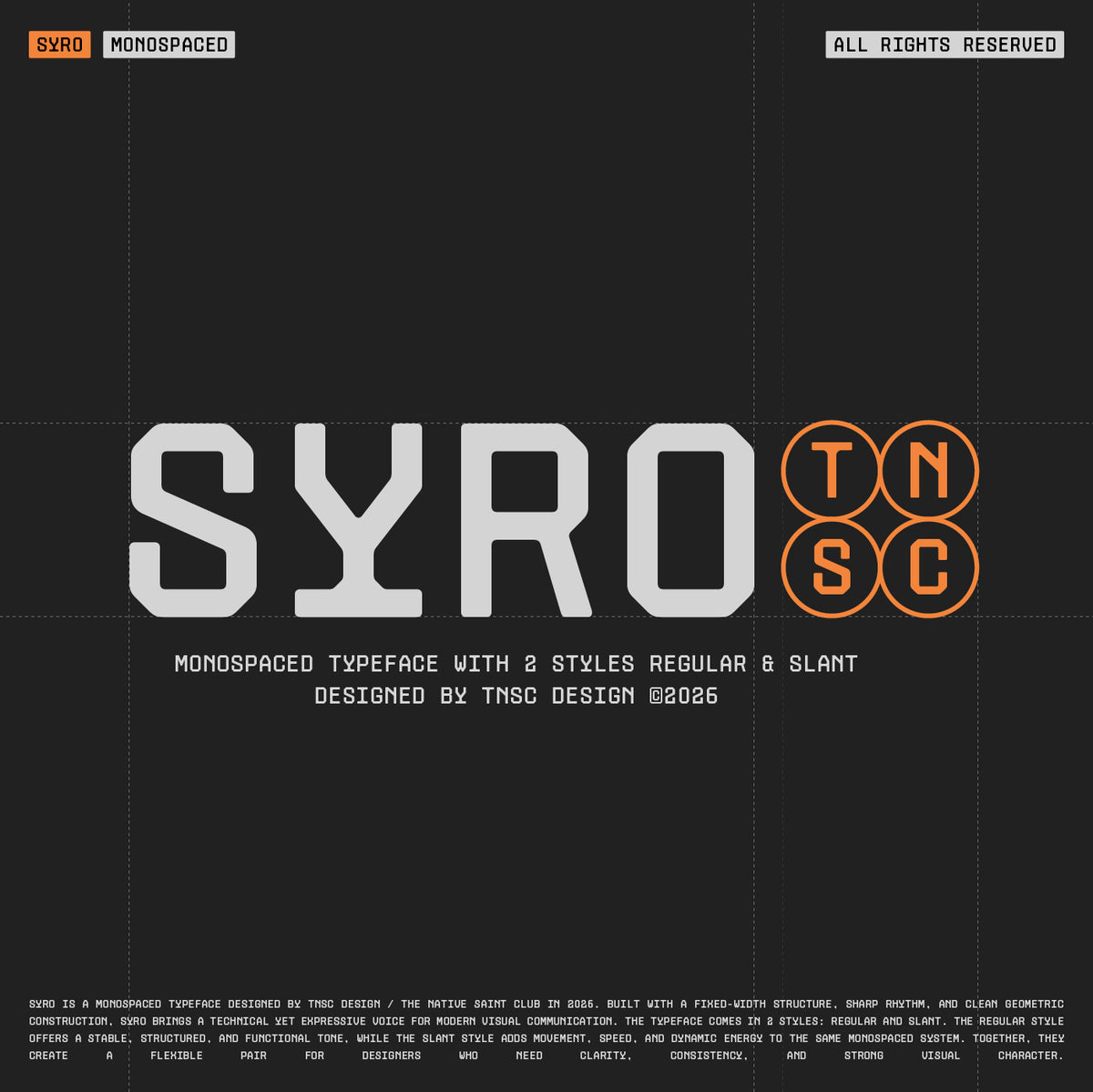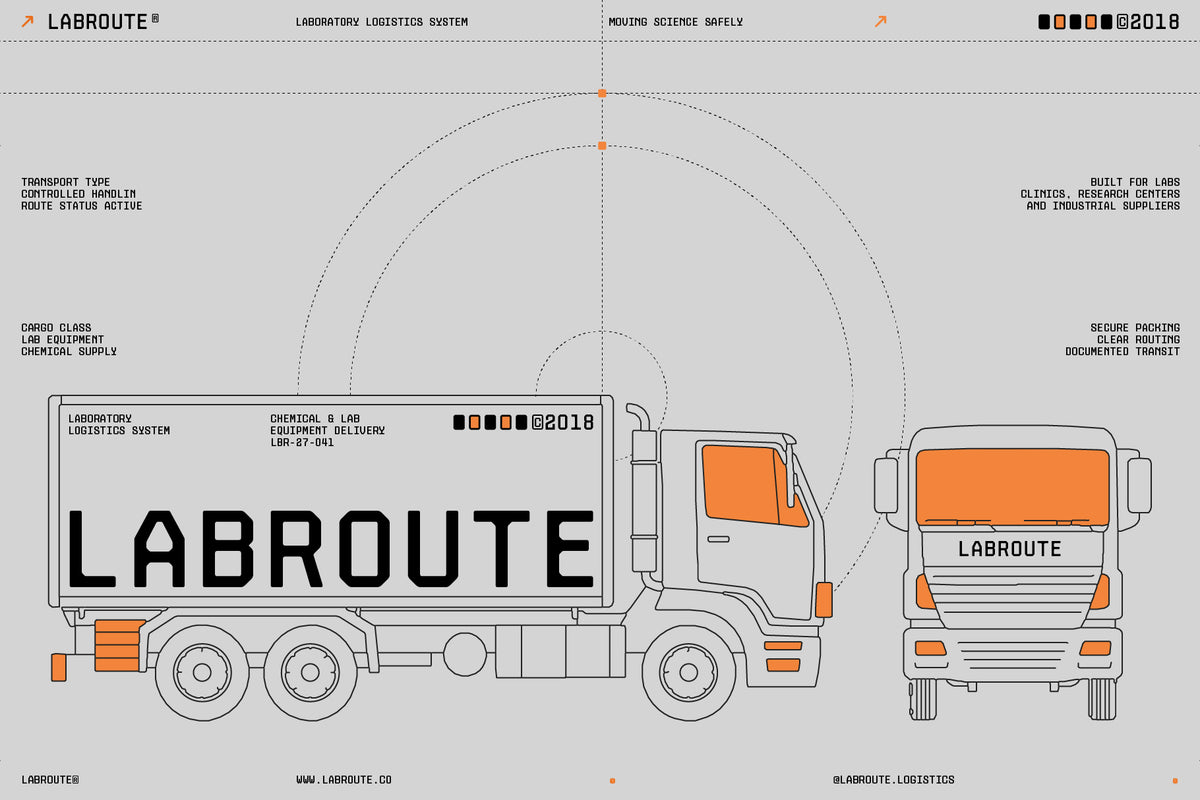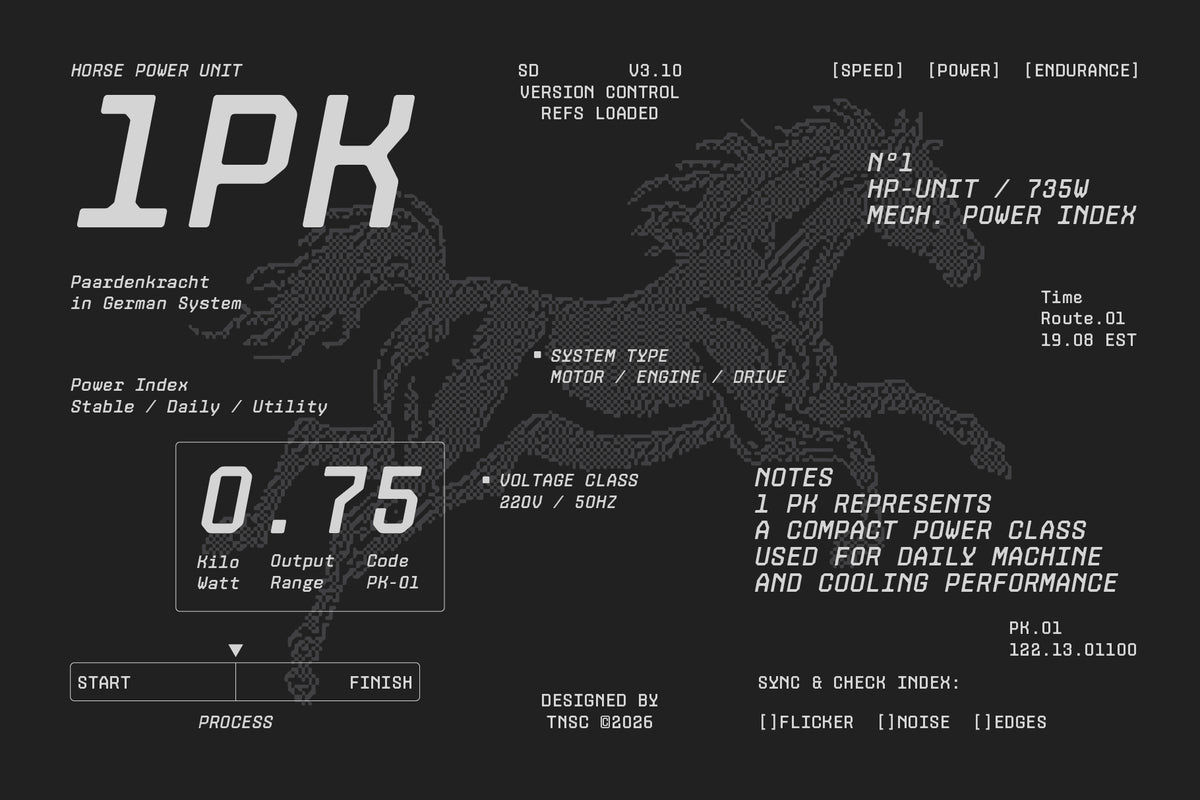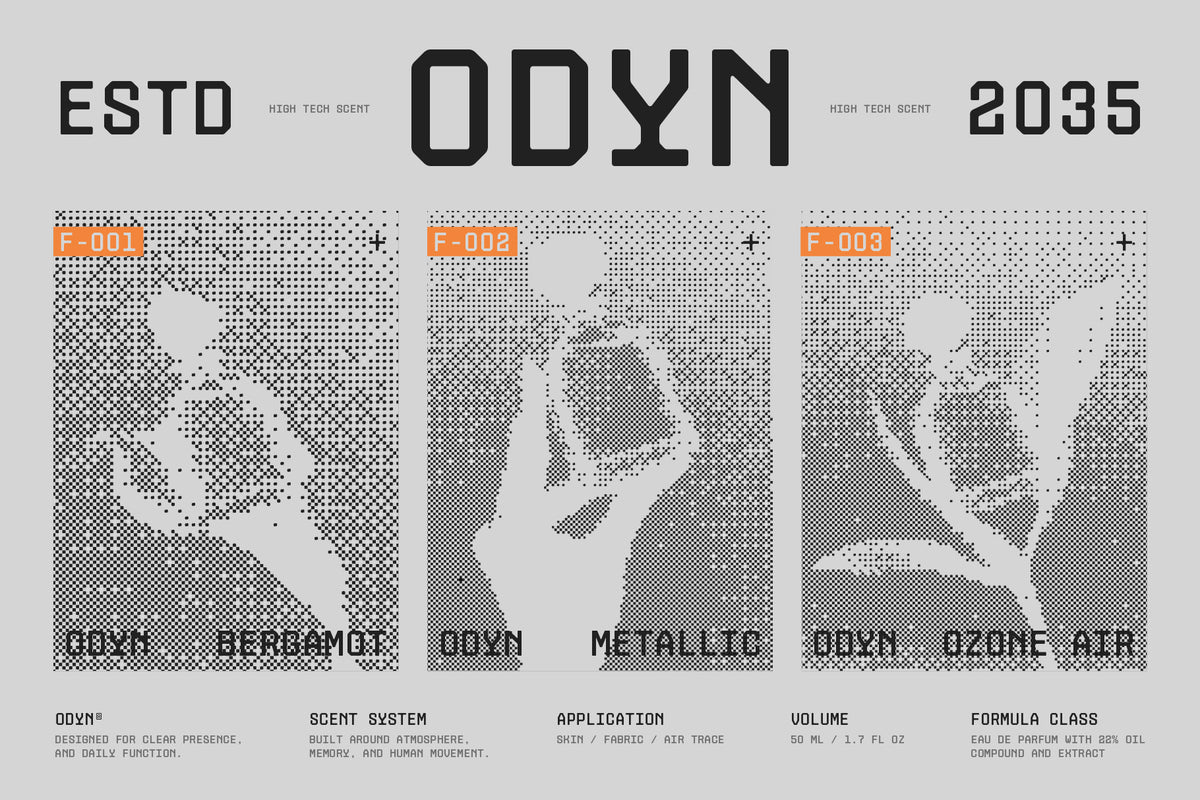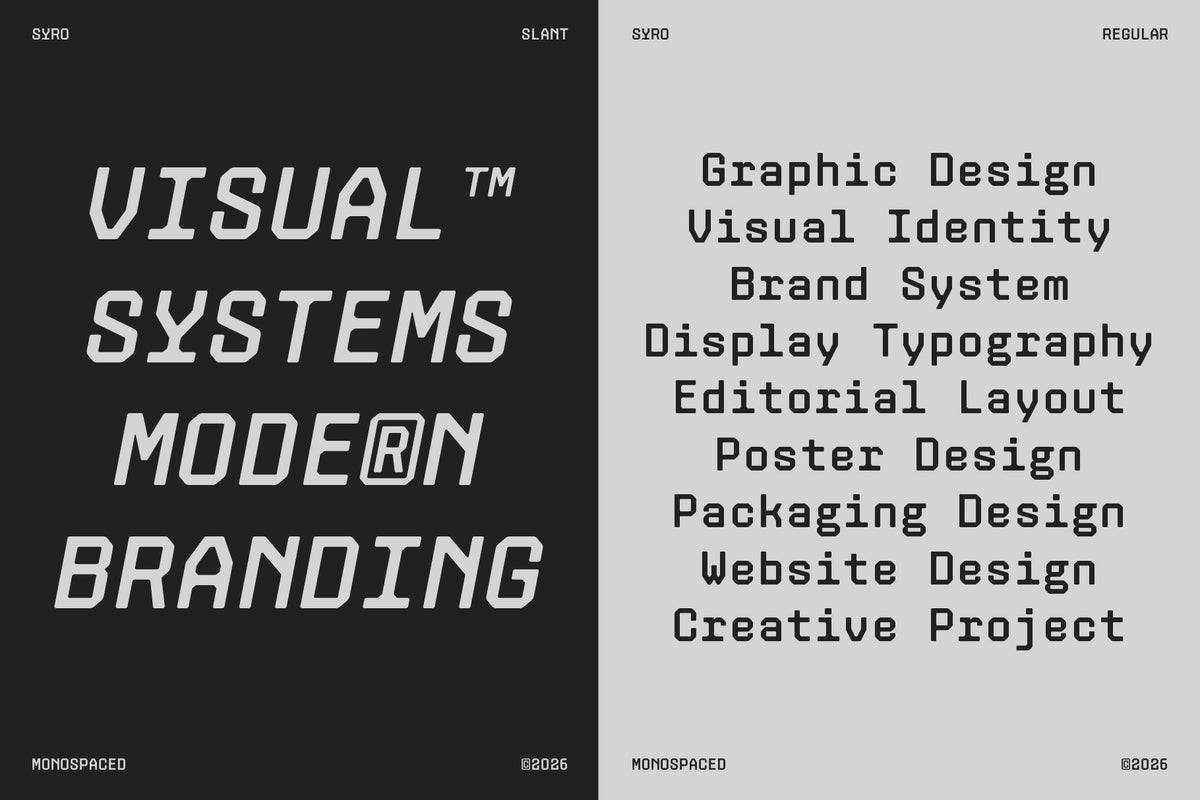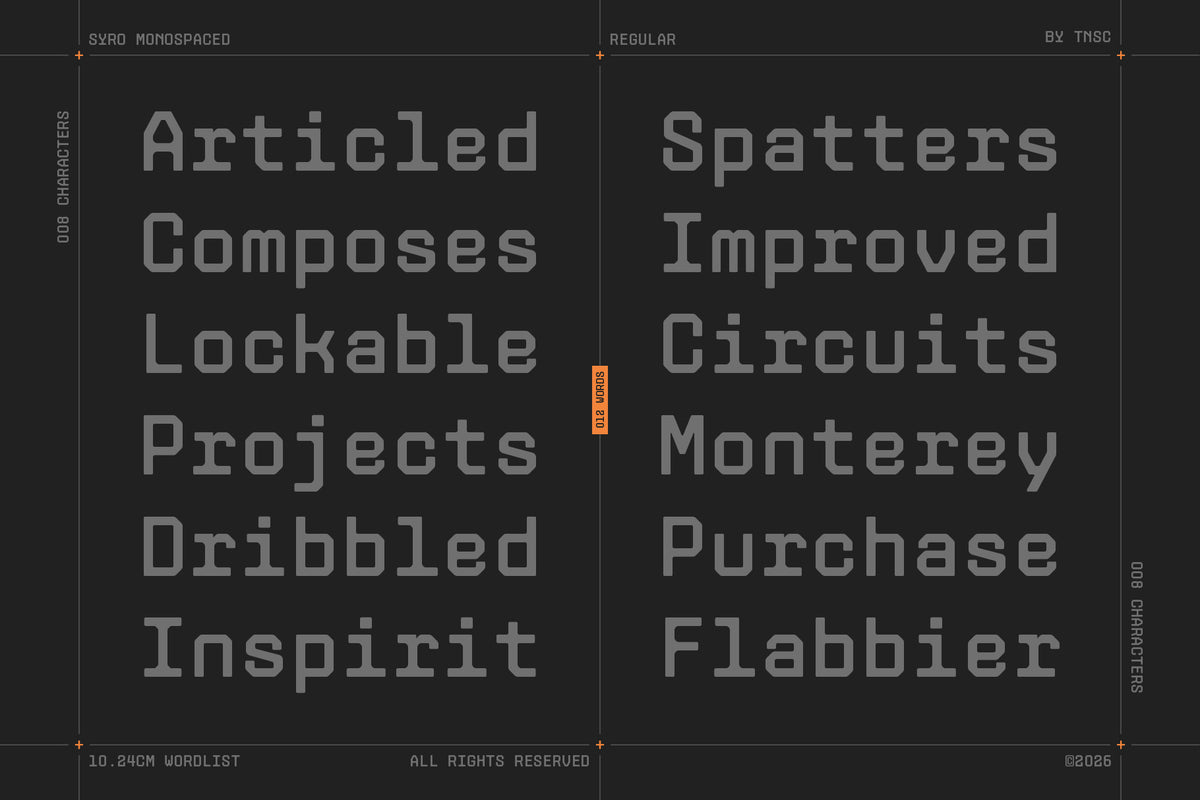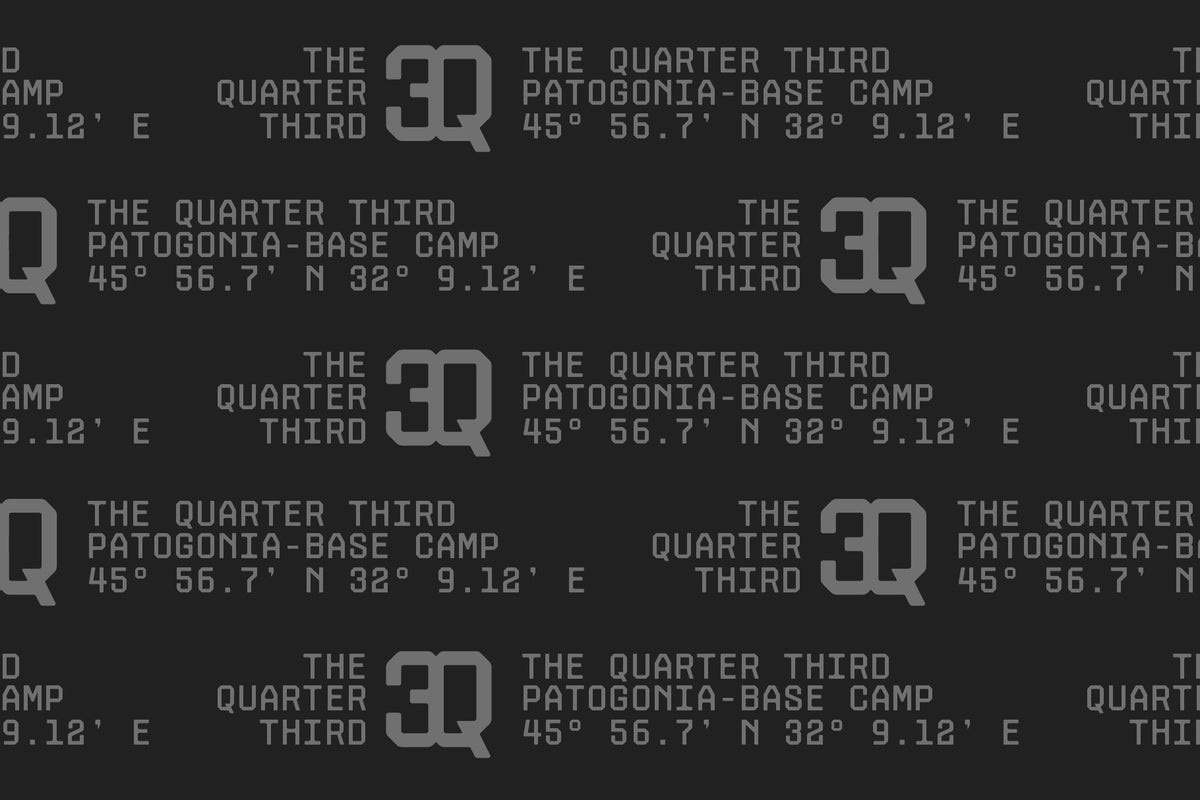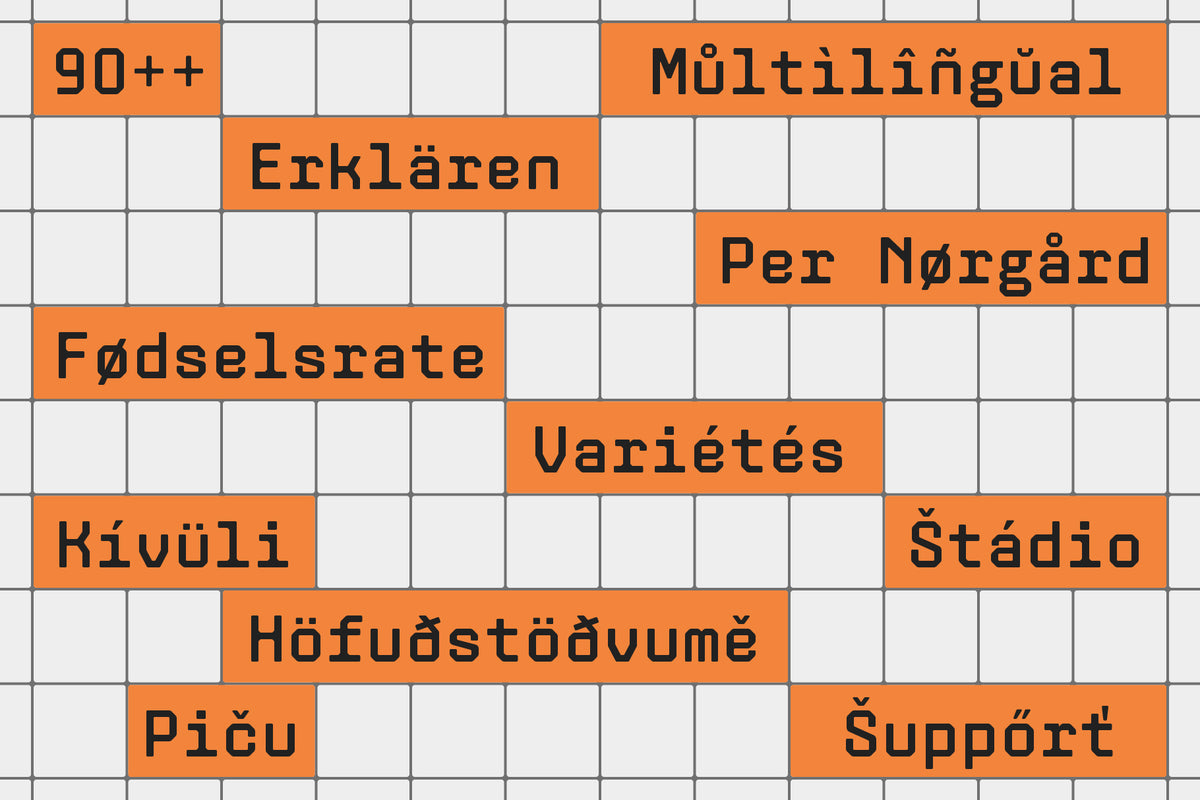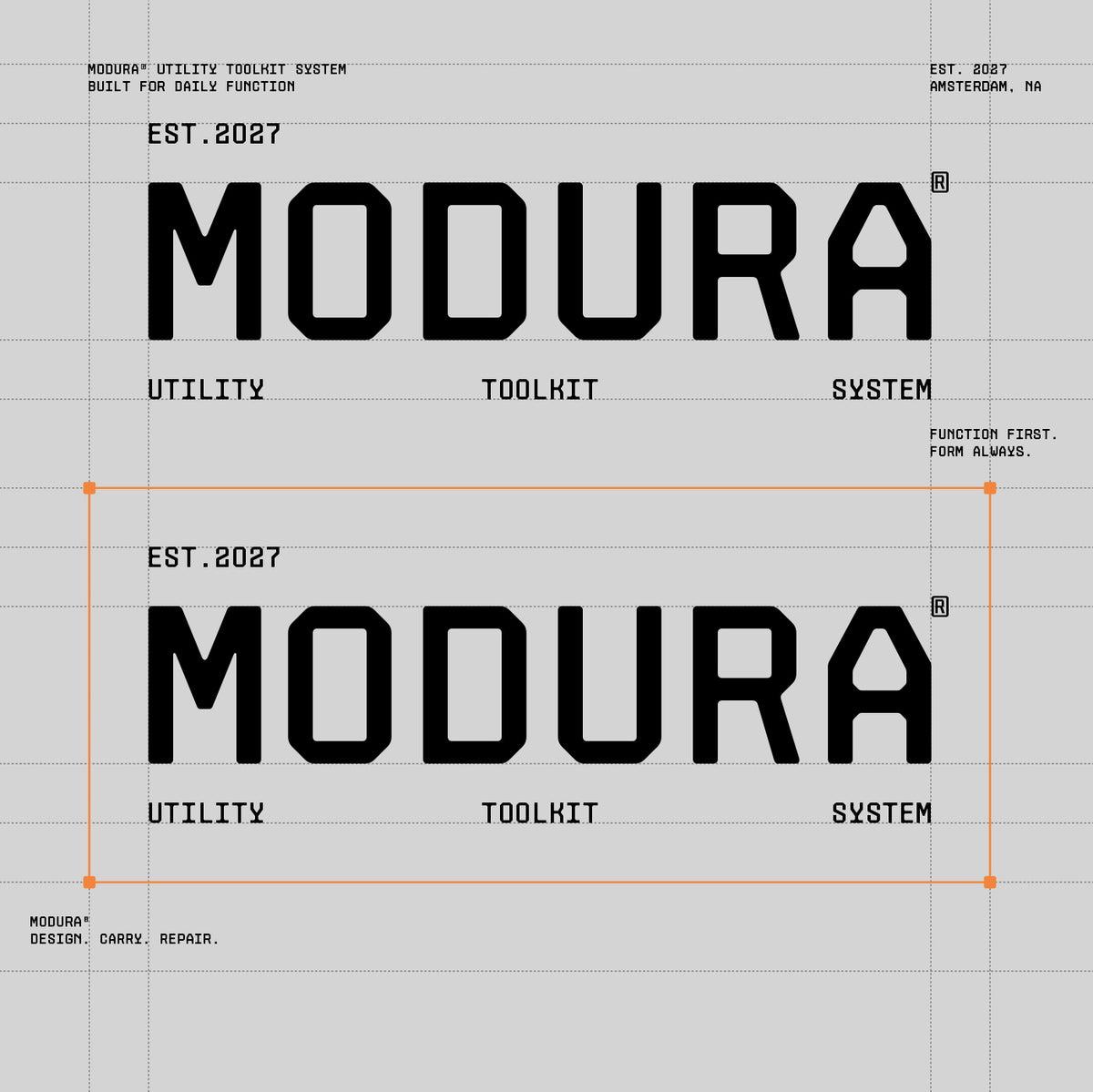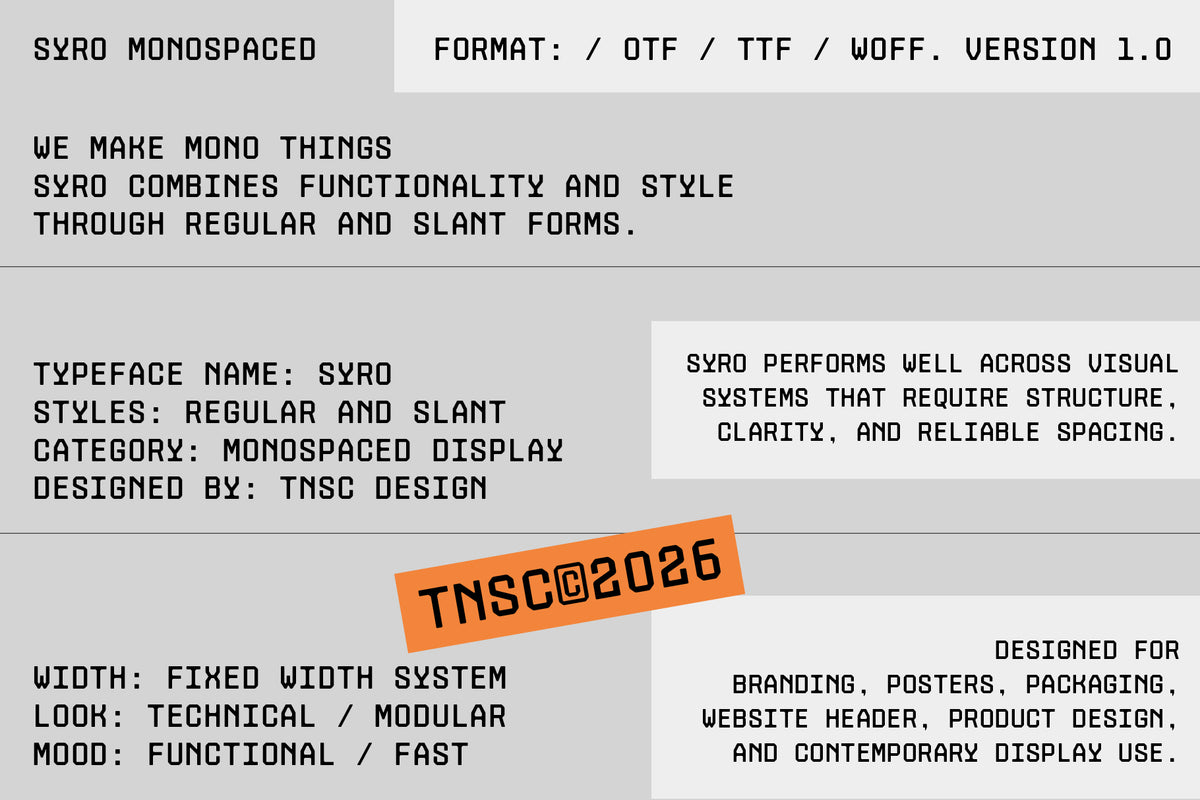
TNSC Syro Mono Typeface
Syro Mono is a modern monospaced display typeface with a clean, modular, and functional personality. Built around a fixed-width system, it combines technical structure with distinctive character shapes, creating a visual language that feels precise, contemporary, and slightly industrial.
Inspired by interface typography, modernist graphics, technical systems, editorial design, and utility-based visual identities, it works especially well for branding, posters, packaging, websites, editorial layouts, product design, tech visuals, and contemporary graphic systems. The family comes with 2 styles: Regular and Slant, along with alternate characters that add more flexibility for creating expressive typographic compositions.
• 473 Glyphs
• 2 Styles (Regular, Slant)
• Lowercase
• Diacritics
• Symbols
• Currency
• Mathematics
• Arrows